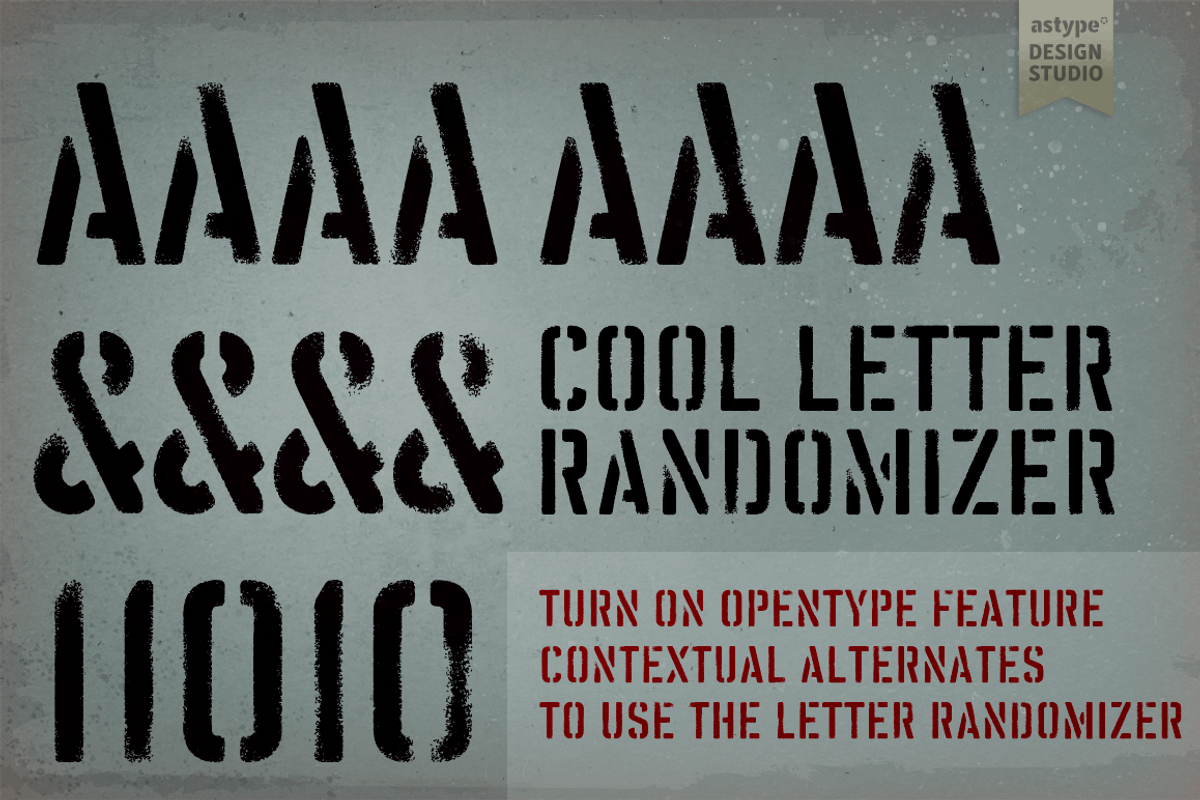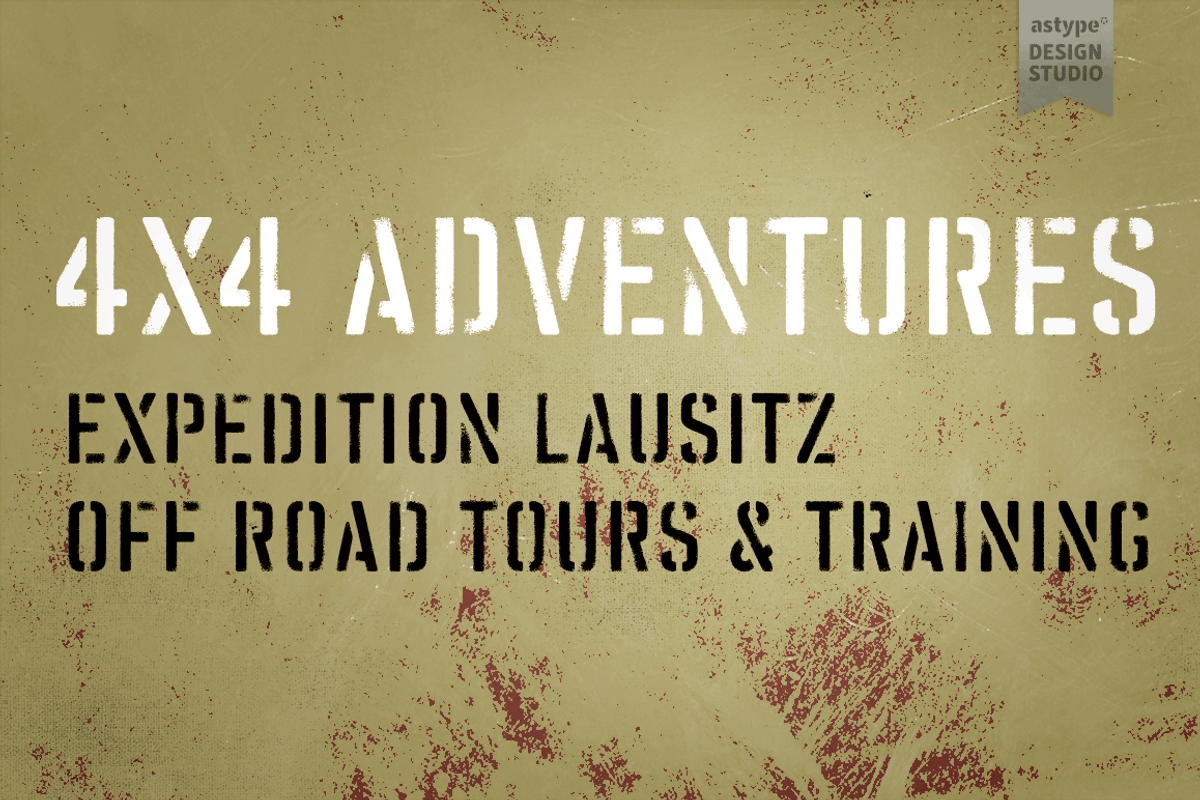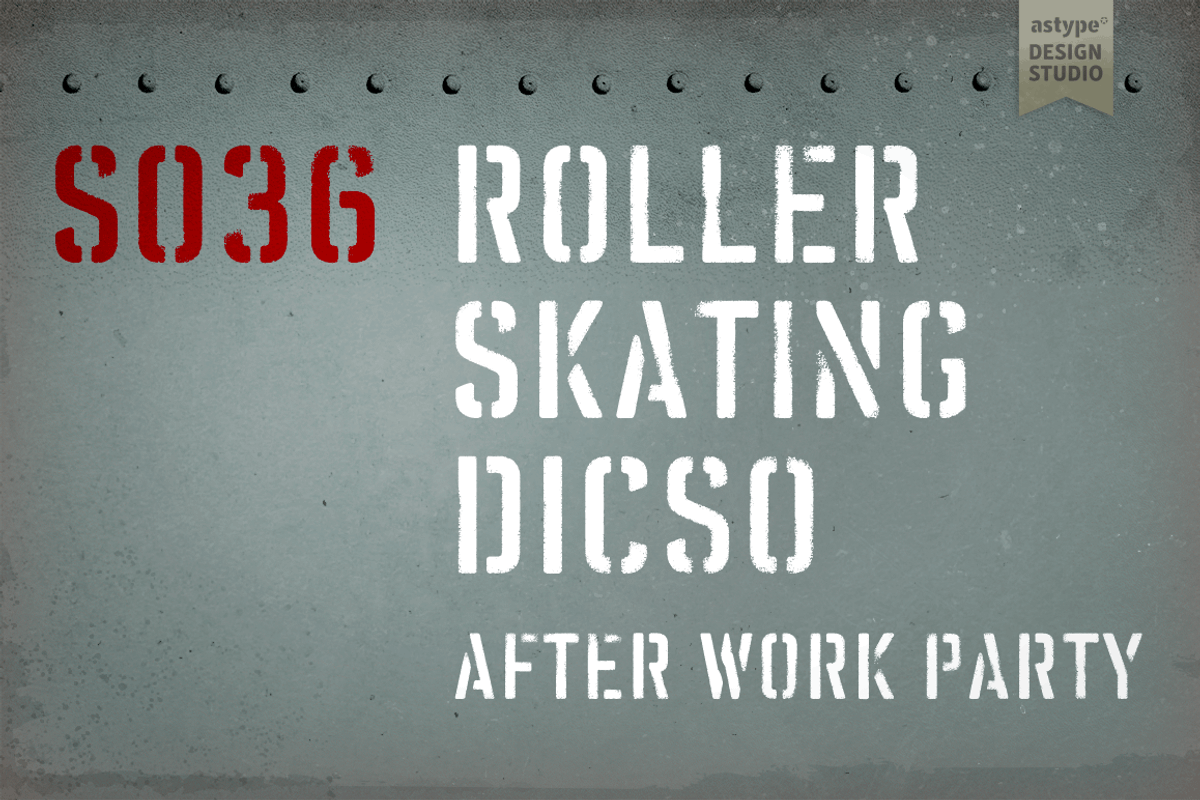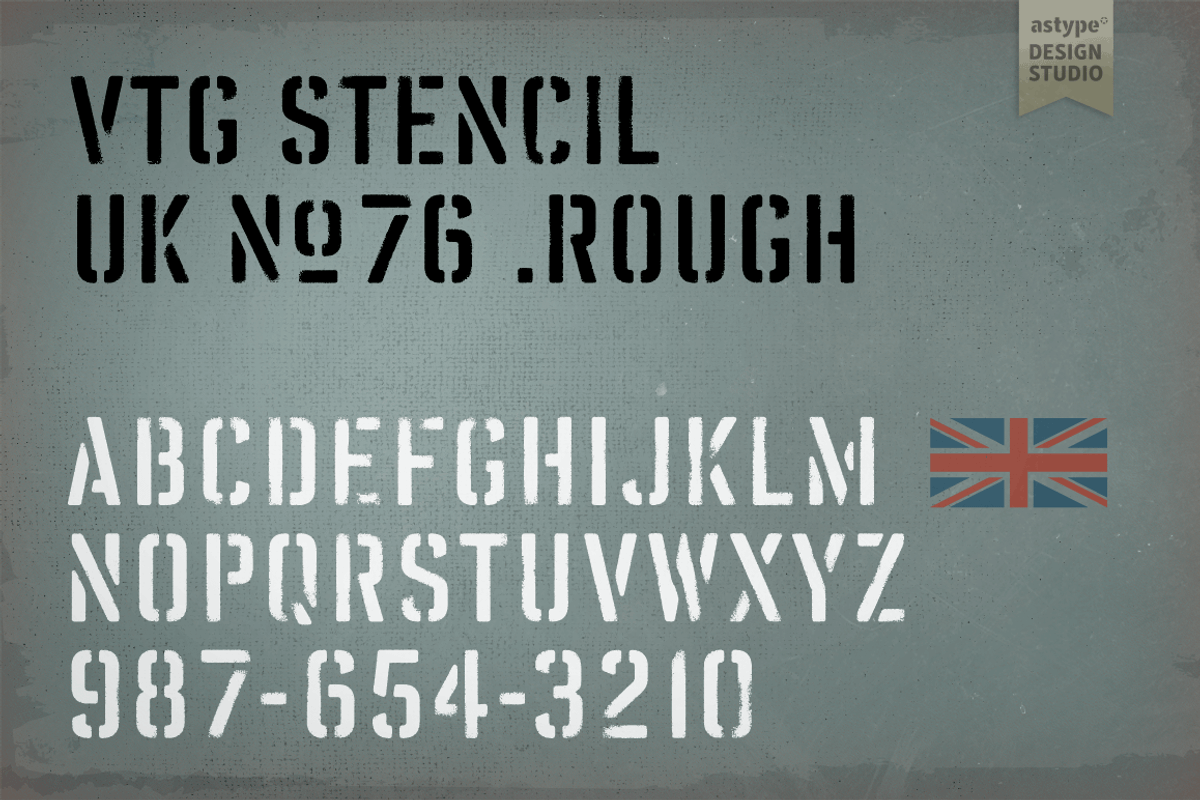
Vtg Stencil UK No. 76 - Rough
The Vtg Stencil fonts from astype are based on real-world stencils from various countries. The UK No.76 design was drawn from authentic stencil plates from Great Britain from the 1960's and 1970's.
The font includes over 680 glyphs and supports Latin Extended character set, so most of the Latin script based languages of the world are supported.